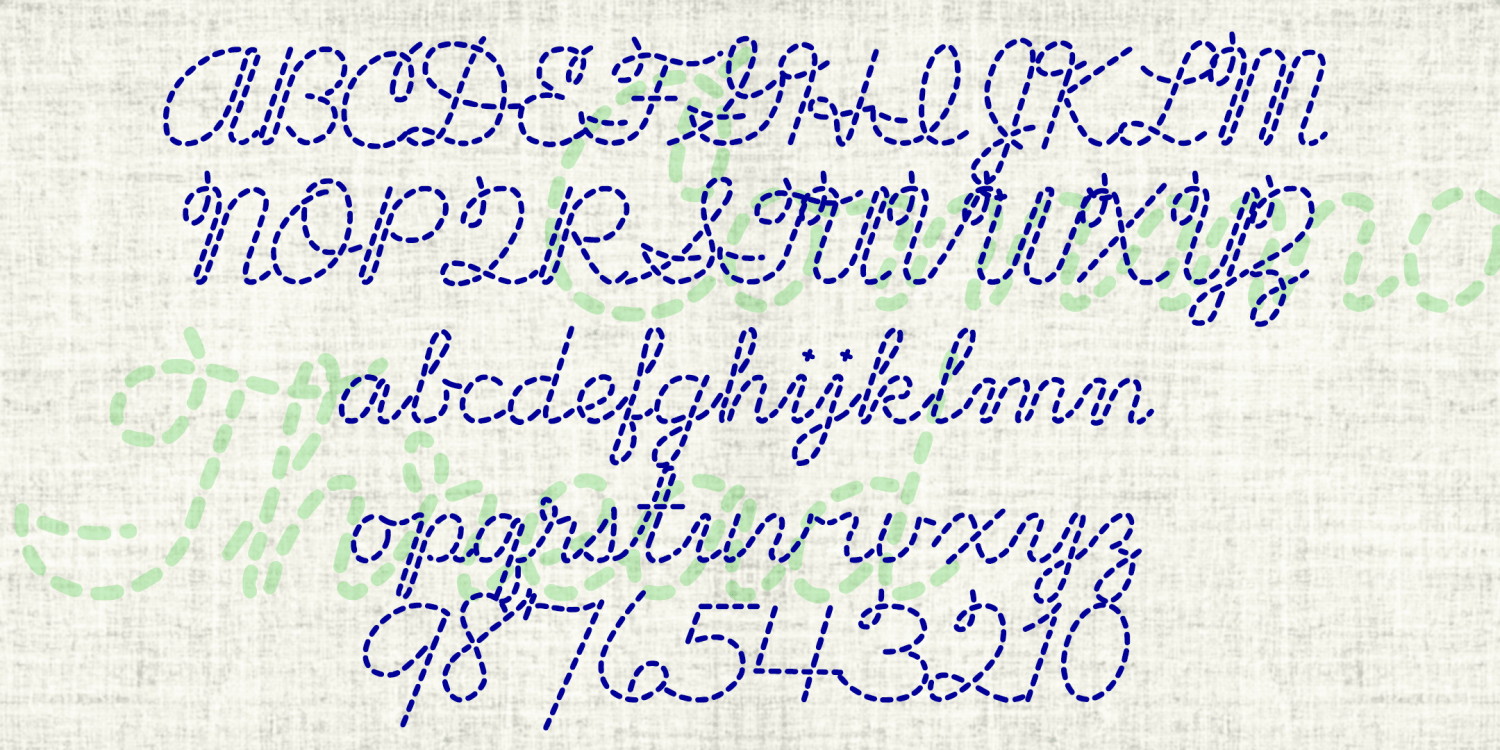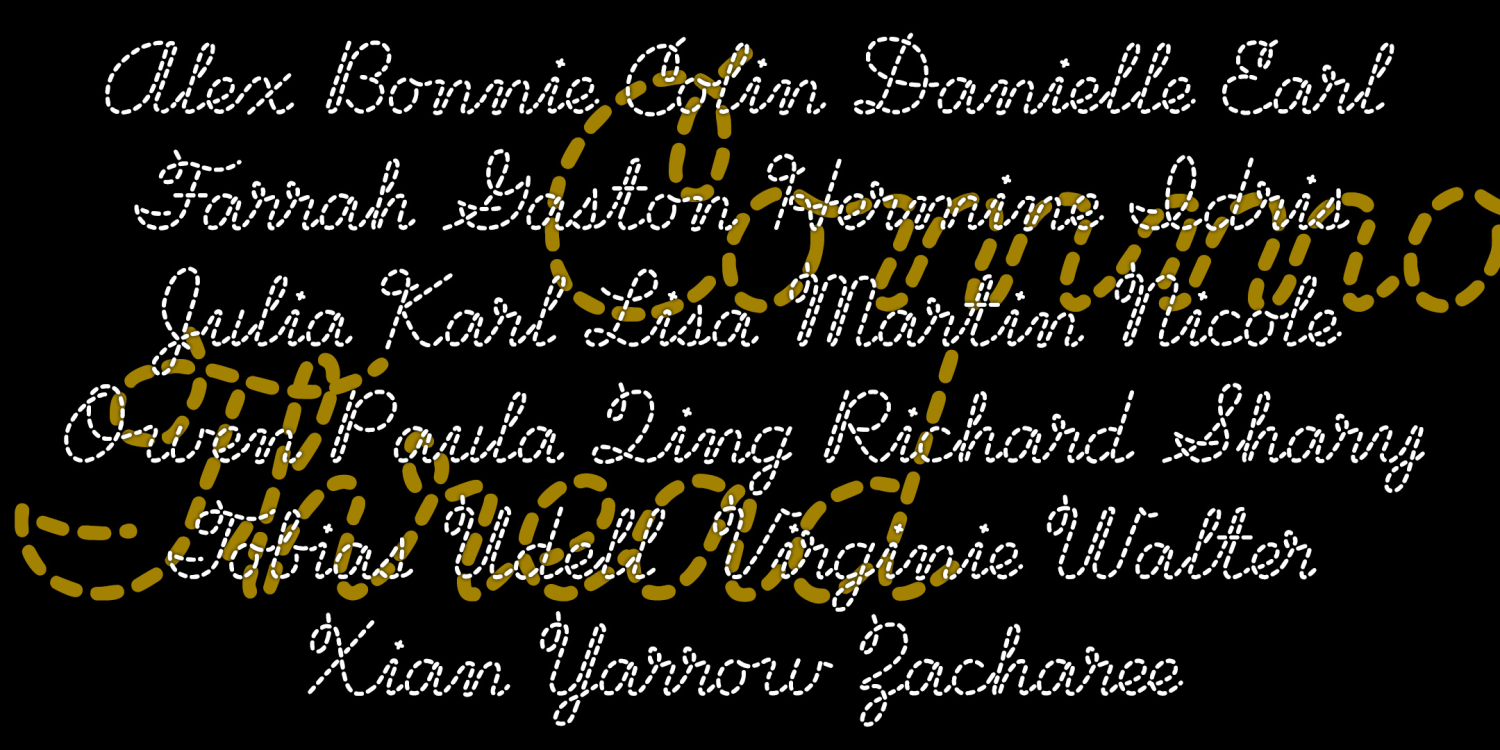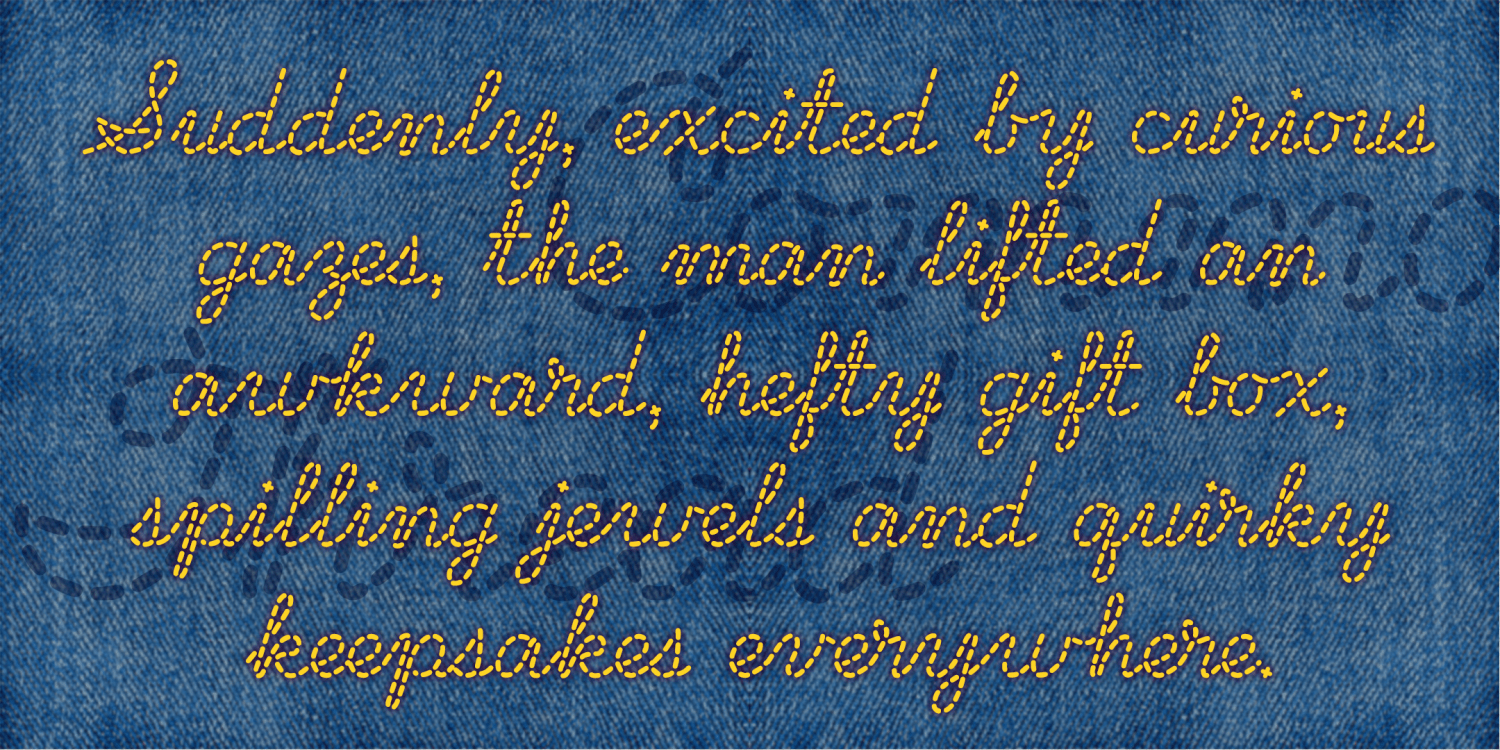
Common Thread
COMMON THREAD is a cursive font that made to look like it’s stitched. Inspired by a small vintage example, I strove to make something like the cursive penmanship I was taught in school, all the while maintaining the look of a single stitched line. Instead of compromising the letterforms so that one glyph fits all combinations, I’ve included lots of alternate letterforms. In apps that support the opentype features stylistic alternates and discretionary ligatures, the substitutions are made automatically to best imitate something handmade.
COMMON THREAD adds a gentle, hand-crafted, domestic or scholastic look.
The Common Thread font family includes 489 glyphs.